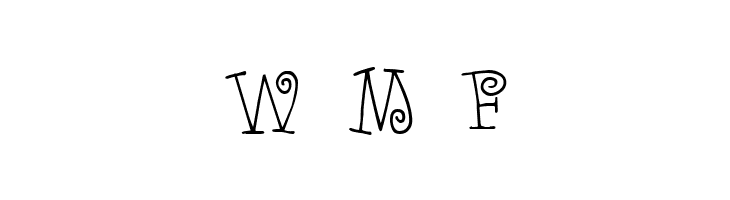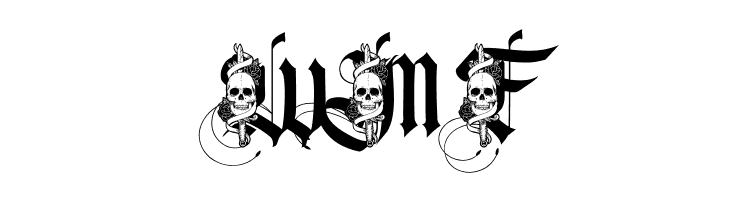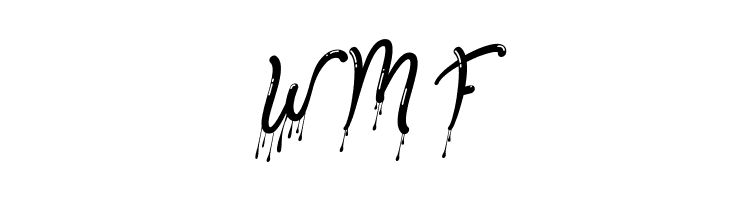
A bold, playful font inspired by school bus signage with a geometric, rounded style.
A whimsical and elegant script font with flowing, cursive letters and decorative flourishes.
An elegant, flowing script font with calligraphic influences and ornate flourishes.
An elegant, flowing script font with intricate loops and flourishes.
A whimsical, decorative font with heart motifs and playful swirls.
A bold, cursive script font with fluid, expressive letterforms.
A playful, hand-drawn font with rounded, consistent strokes.
A bold, rounded font with a playful and approachable style.
A playful, bold, and rounded font with smooth letterforms.
A playful, handwritten-style font with rounded edges and consistent stroke thickness.
A bold blackletter font with skull motifs for a gothic and edgy look.
A ruler-themed font with bold, precise characters and measurement markings.
A bold, artistic font with playful, irregular strokes and a hand-drawn feel.
A playful and spooky decorative font ideal for Halloween themes.
A bold, playful font with exaggerated curves and a whimsical style.
A playful and expressive font featuring emoticons and words that convey various emotions.
A playful, decorative set of frames and arrows with unique patterns and handwritten words.
A lively comic-style font featuring dynamic onomatopoeic words and symbols.
Playful decorative dingbat set with frames, arrows, and handwritten words.
A chic and playful set of fashion-themed icons and words in a whimsical, handwritten style.
A vibrant set of comic-style elements with explosive words and dynamic shapes.
An elegant script font with flowing, cursive letters and sophisticated style.
A bold, distressed font with a grunge aesthetic and uneven edges.
A decorative font with medieval and fantasy-inspired elements.
A bold, flame-themed decorative font perfect for dynamic and energetic designs.
A bold, chaotic display font with a punk rock aesthetic and distressed look.
A decorative, mail art-inspired graphic and text stamp collection with varied styles.